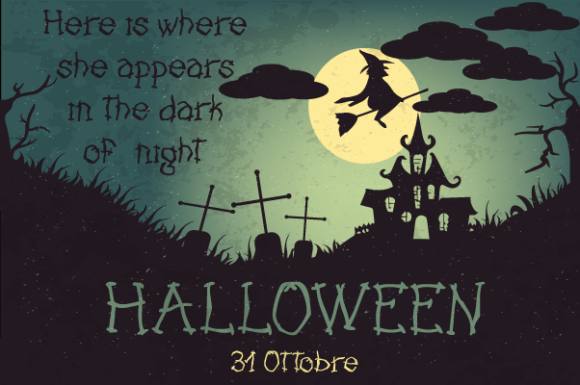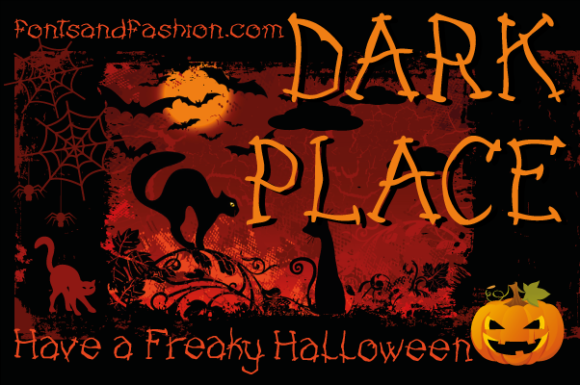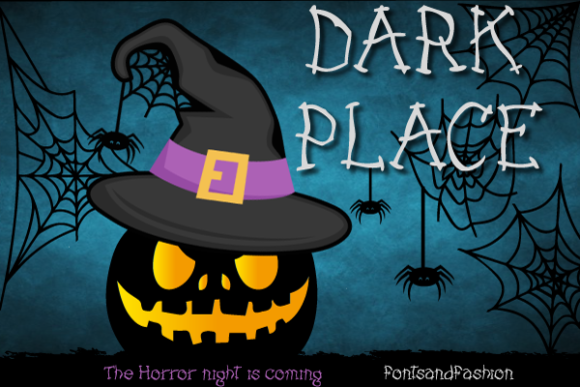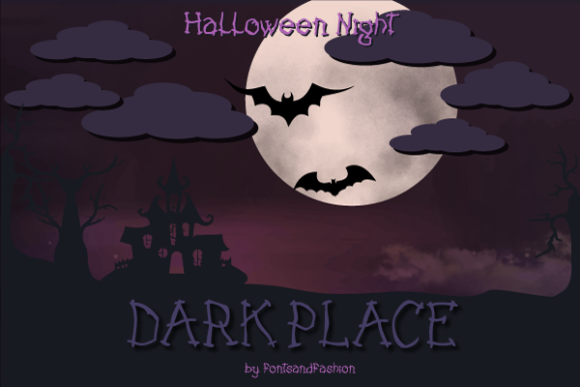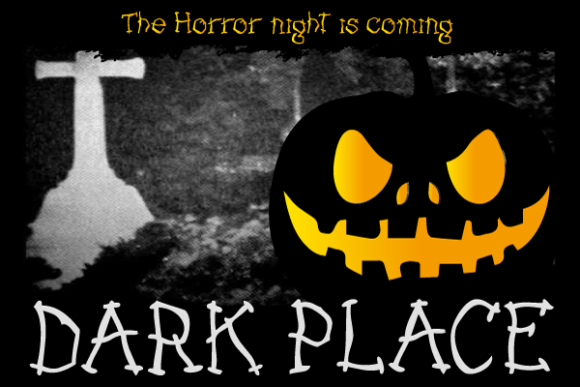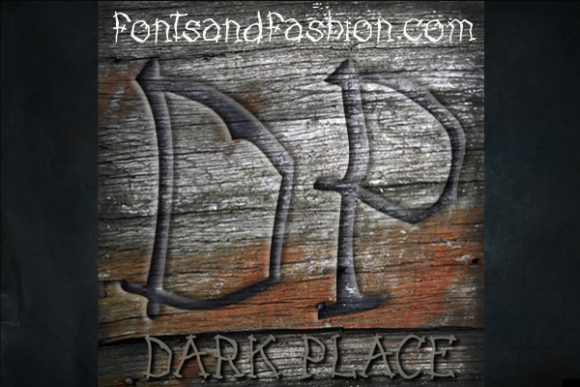
The Magic of Dark Place Font: Elevate Your Halloween Designs
As a designer, I’ve had my fair share of late nights scrolling through font libraries, searching for that perfect typeface to bring my project to life. One particularly memorable night was when I was working on a Halloween-themed design for a client. I wanted a font that would scream spooky-chic, but everything I found seemed either too cutesy or too over-the-top. That’s when I stumbled upon the Dark Place Font ✨. It was love at first sight!
An Honest Review of Dark Place Font
So, what makes Dark Place Font so special? Let’s dive into the good stuff and, of course, a few quirks I’ve noticed.
- ✨ Unique Style: Dark Place Font boasts a unique, eye-catching style that’s perfect for display purposes. Its quirky, somewhat whimsical feel adds a touch of personality to any design.
- ✅ Versatility: Despite its spooky undertones, this font can be surprisingly versatile. It works well for various design projects, from Halloween-themed posters to more abstract artistic expressions.
- 🔍 Legibility: Even at smaller sizes, Dark Place Font remains surprisingly legible, making it a great choice for designs that require a bit of text.
While Dark Place Font is fantastic, there are a few things to keep in mind:
- 🤔 Not Ideal for Body Text: Due to its unique style, Dark Place Font might not be the best choice for lengthy body text. It’s best used for headlines or short phrases.
- ⚠️ Glyph Support: Some users have reported limited support for certain glyphs or special characters. It’s always a good idea to test the font with your specific text requirements.
The Backstory of Dark Place Font
Ever wonder who created such a unique font? While the origins of Dark Place Font might be shrouded in mystery, it’s easy to imagine it was crafted by a designer with a passion for the mysterious and unknown. Perhaps they drew inspiration from old, eerie manuscripts or the bold, quirky typography of vintage Halloween posters. Whatever the inspiration, Dark Place Font certainly brings a unique personality to the world of typography.
| Is Dark Place Font suitable for body text? | No, due to its unique style, Dark Place Font is best used for headlines or short phrases rather than lengthy body text. |
| Does Dark Place Font support OpenType features? | Yes, Dark Place Font likely supports OpenType features, including glyphs and stylistic alternates, which can add variety and creativity to your designs. |